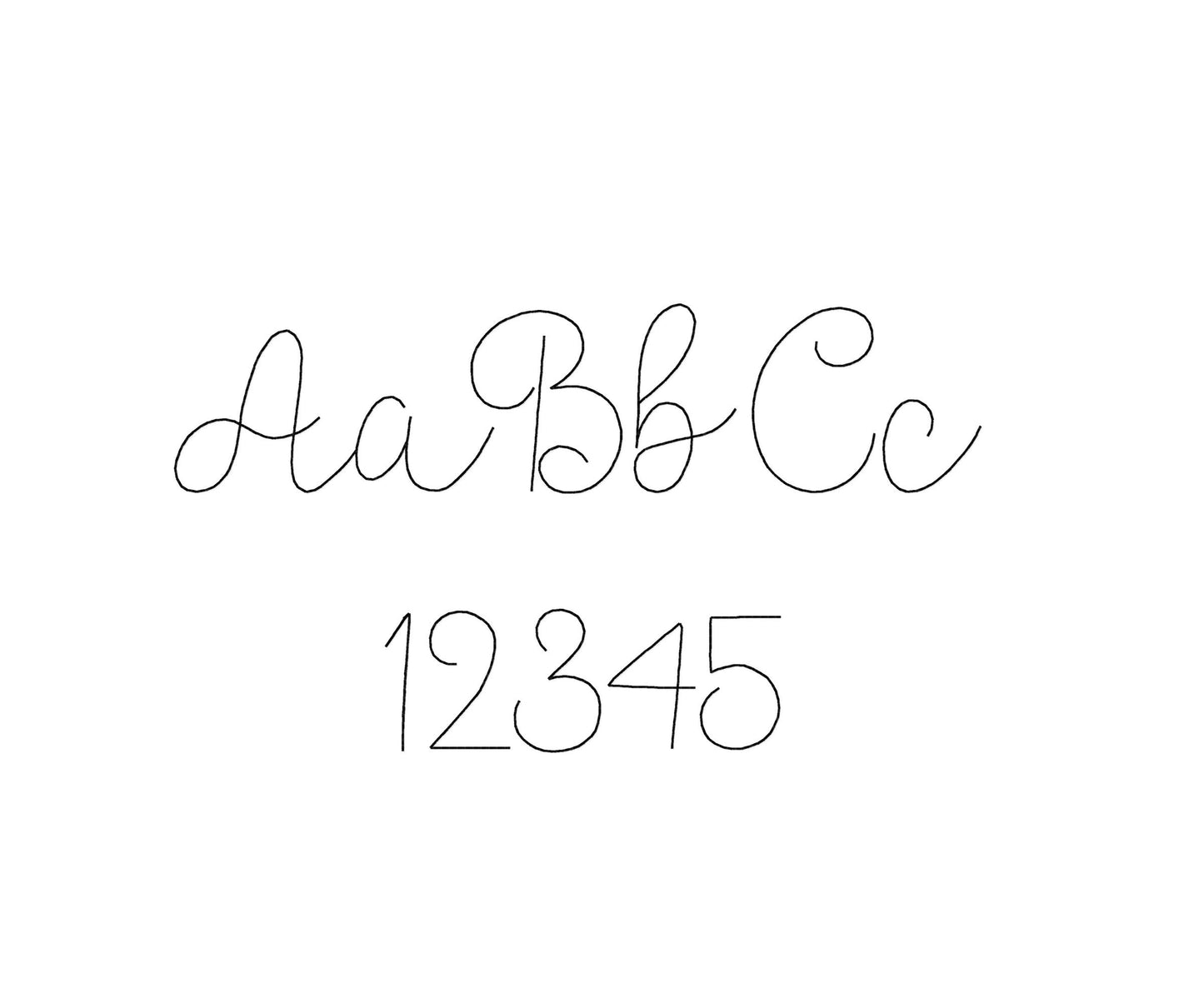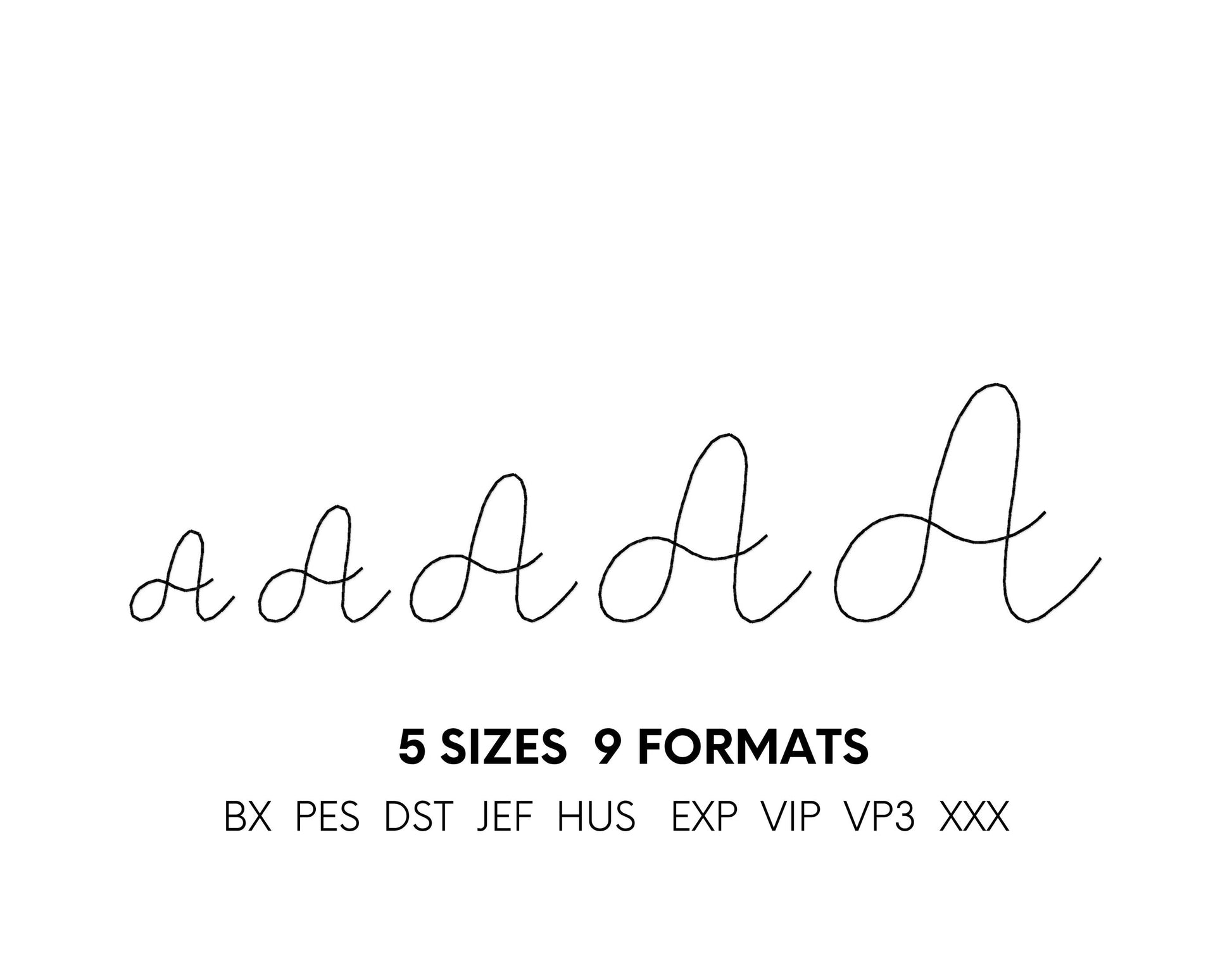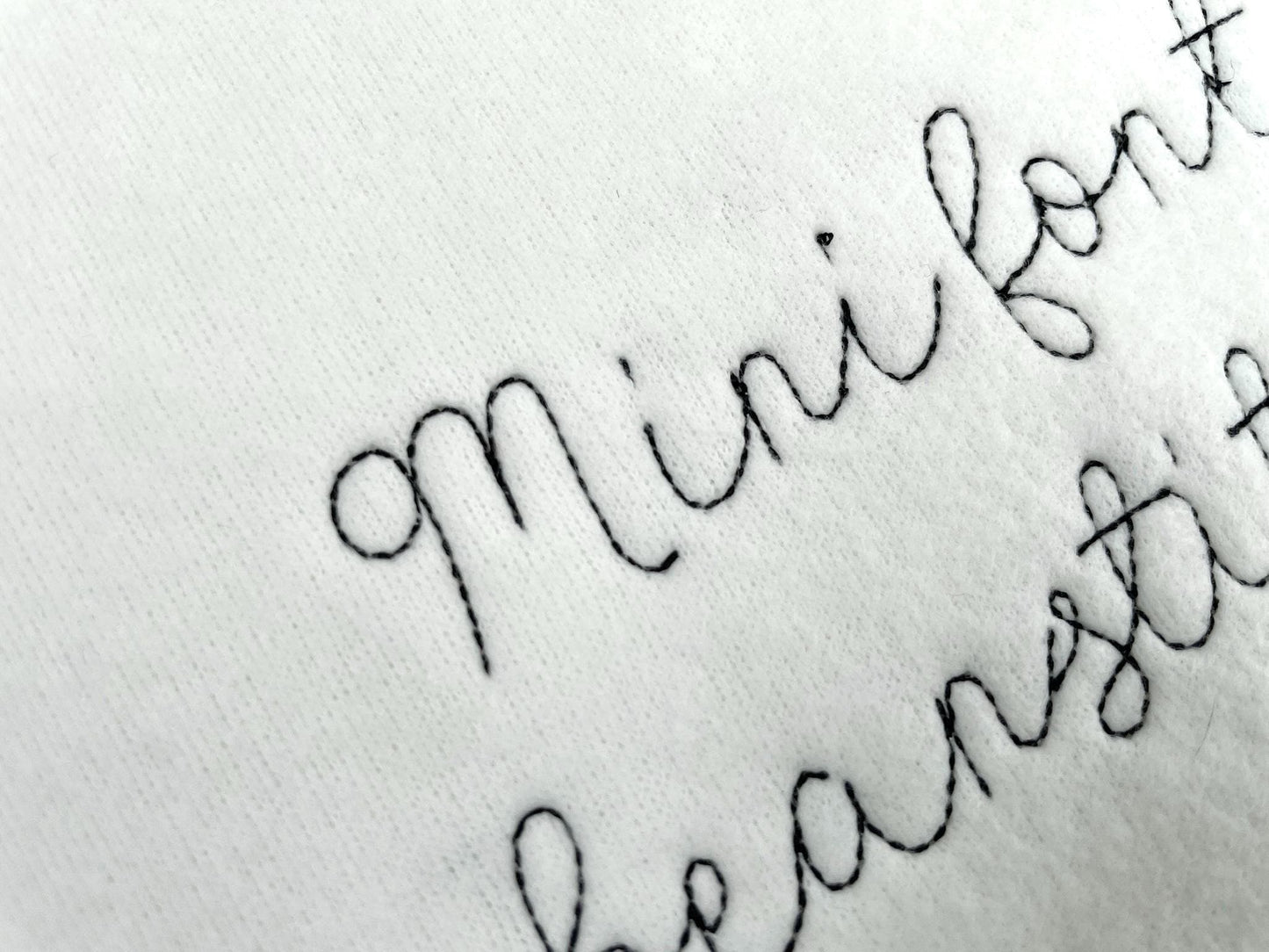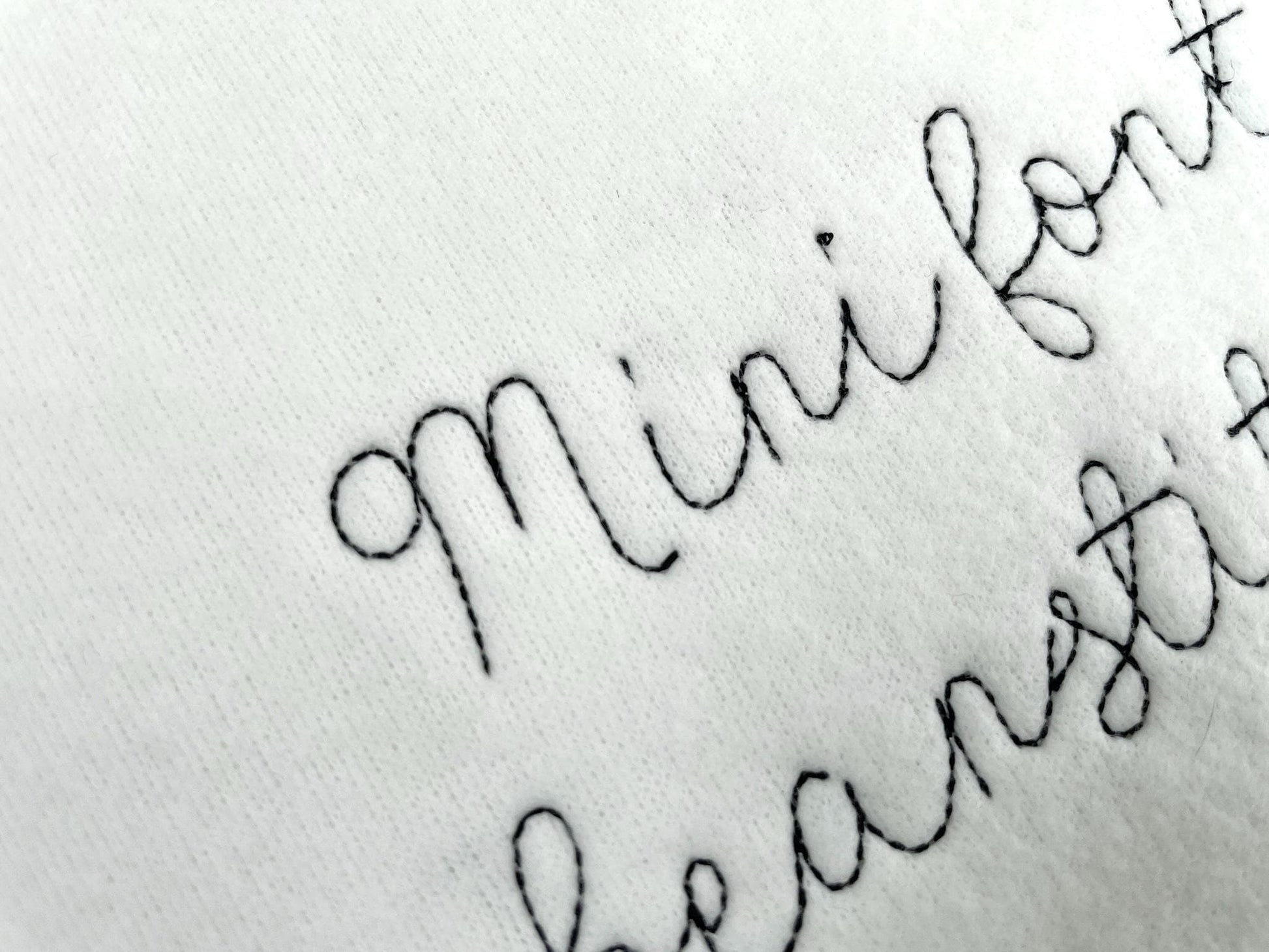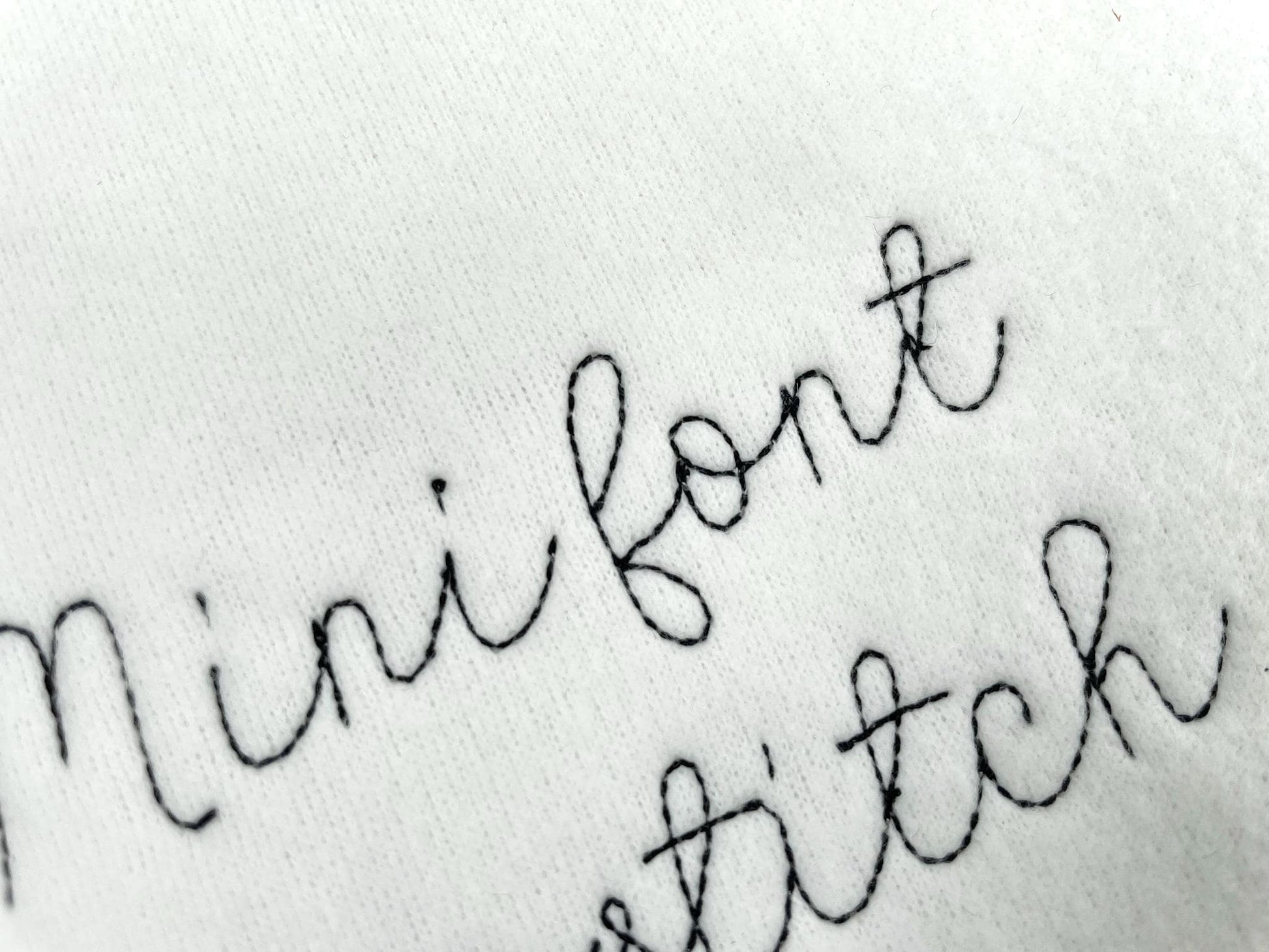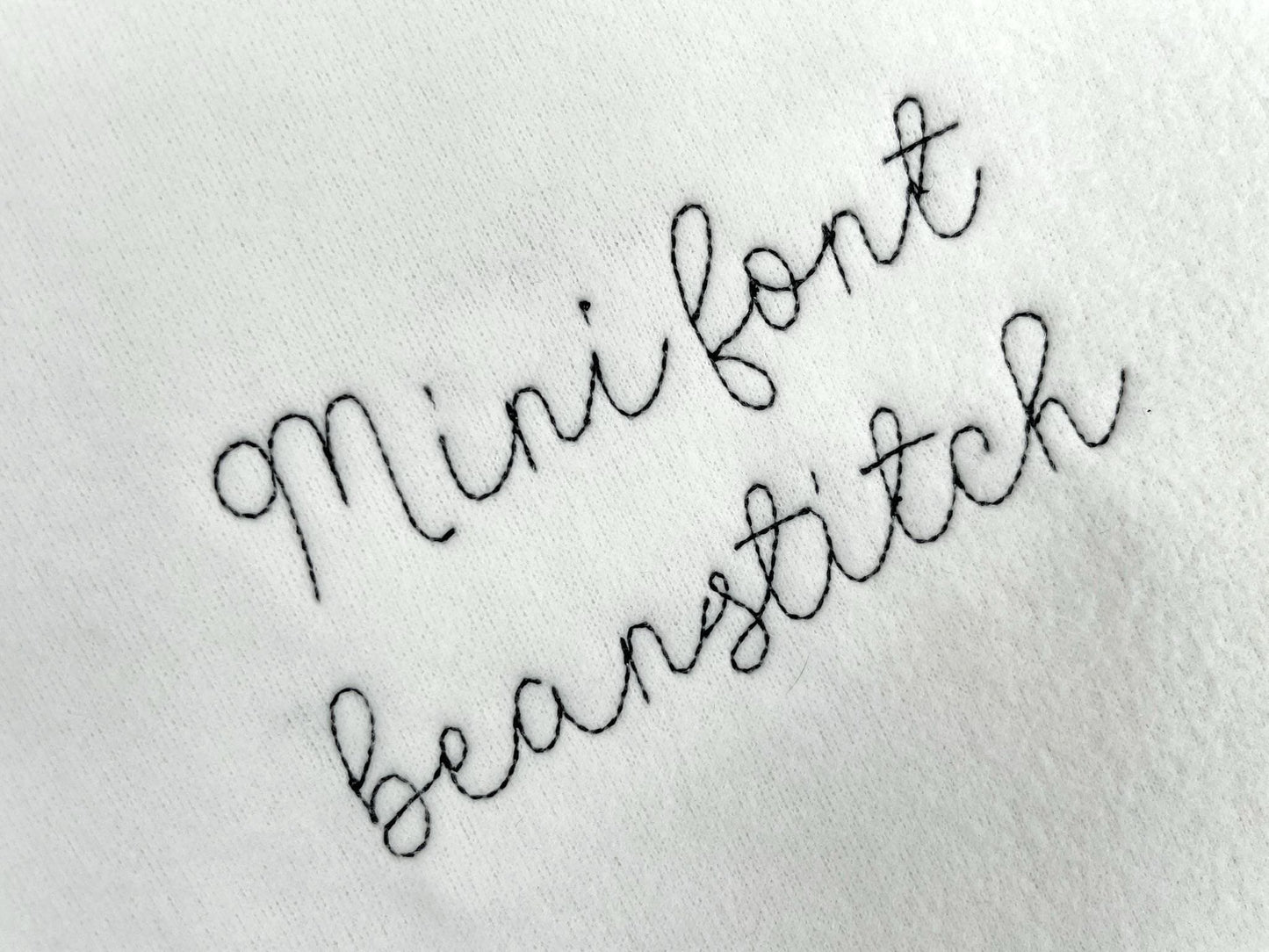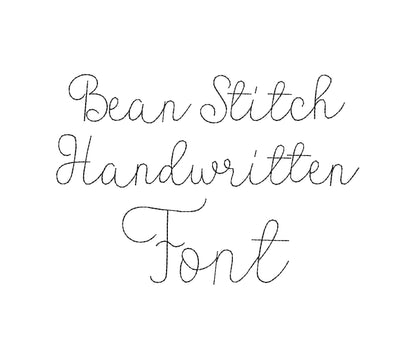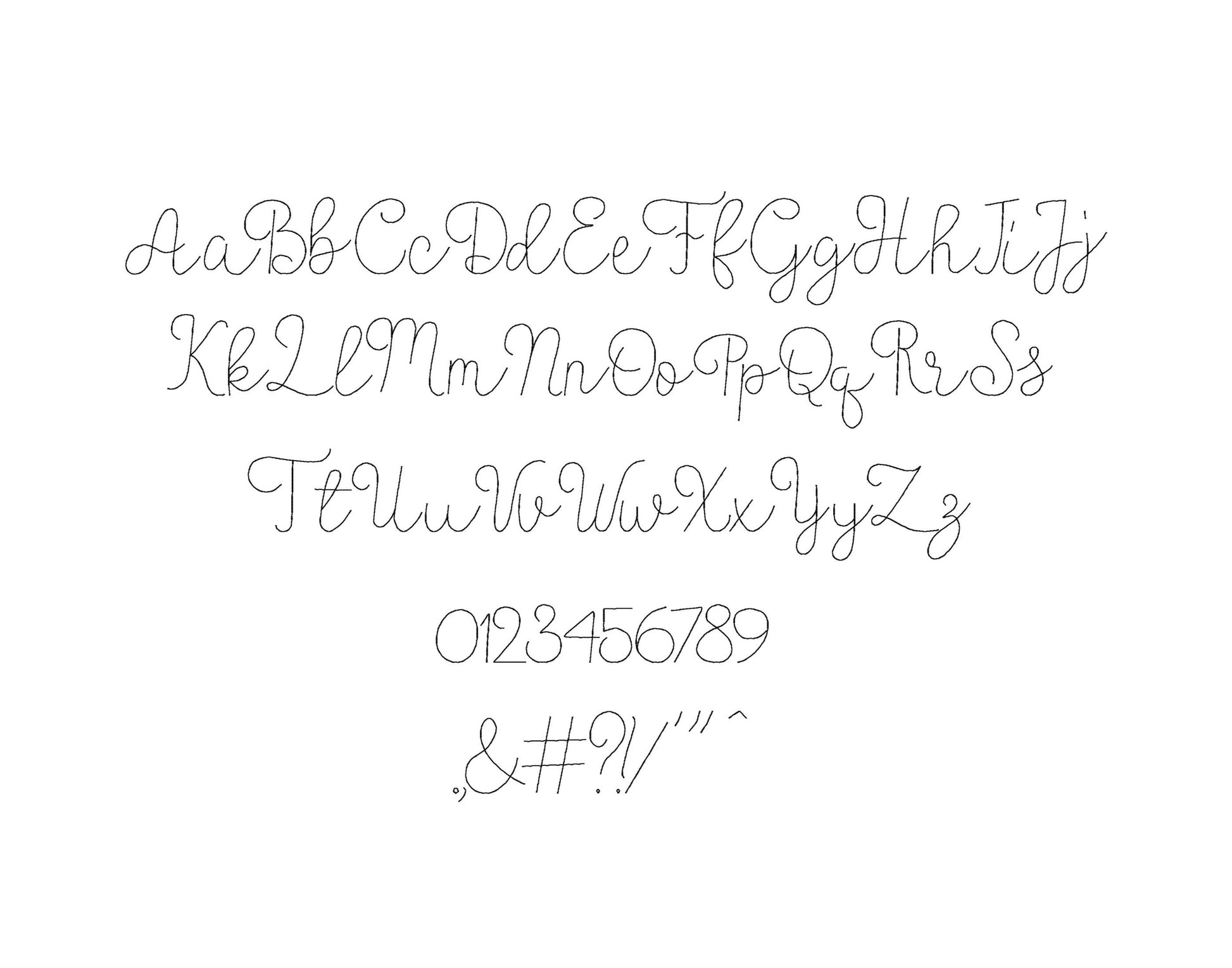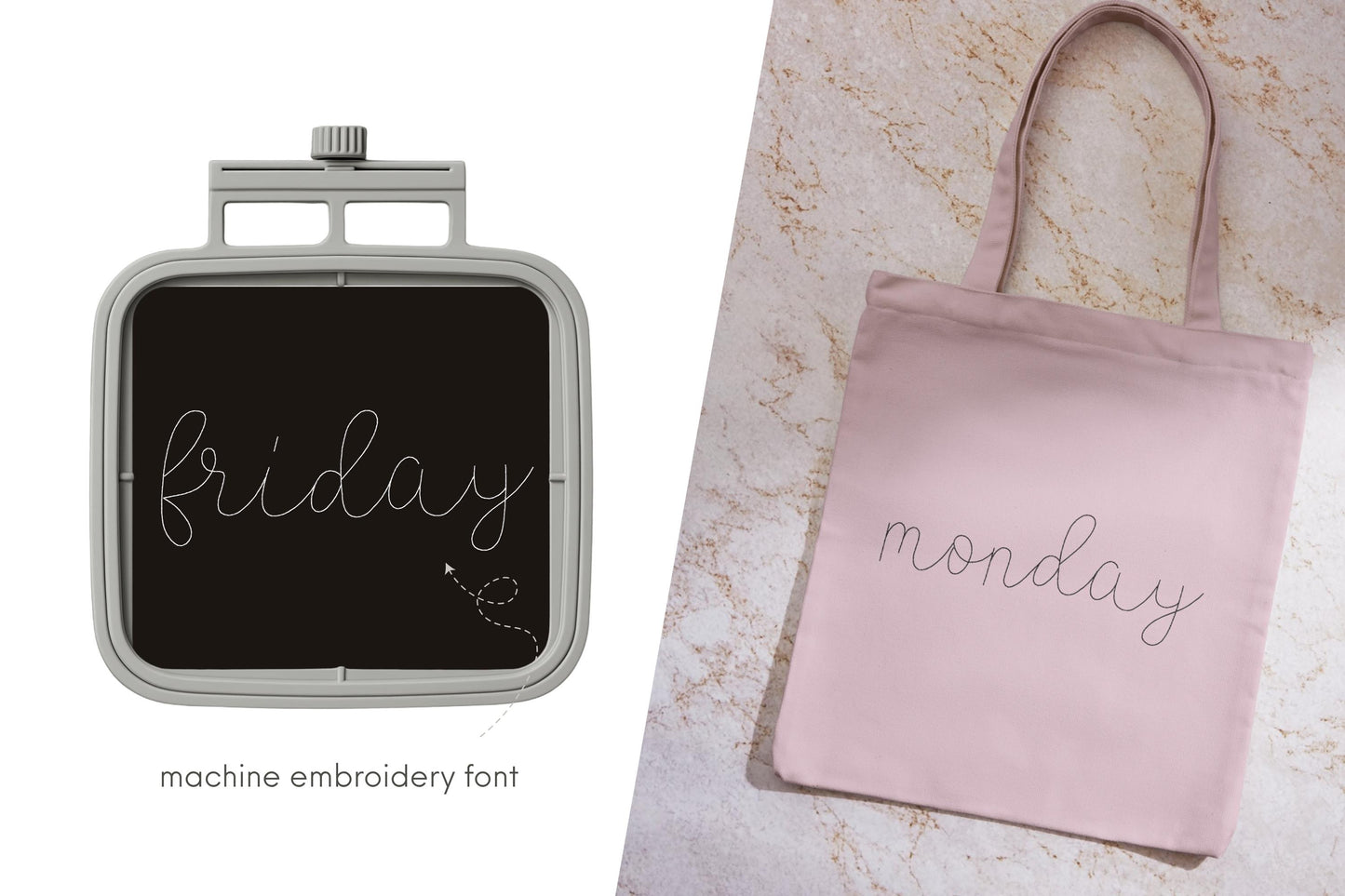
Bean Stitch Handwritten Font Quick Light Stitch Script
Uppercase and lowercase letters, numbers 0 to 9 and punctuation, in five mini sizes: 0.6, 1, 1.2, 1.5 and 1.8 inches.
- Bean stitch handwritten mini font
- Uppercase and lowercase letters, numbers 0-9, punctuation
- 5 sizes, 0.6 to 1.8 in